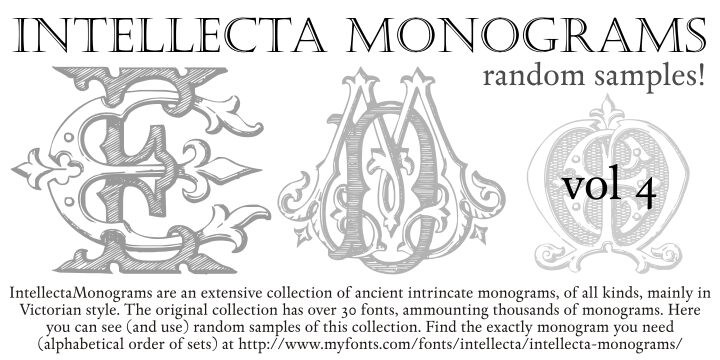
Intellecta Monograms Random Samples Four is a free decorative monogram dingbat font by Paulo W., built around elaborate interlocking initials. Each design layers engraved shading, hairline curls, leafy flourishes, and dense overlapping strokes in the manner of nineteenth-century seals and stationery, with pointed ornaments tucked between the sweeping curves.
Its strongest role is an ornate emblem for boutique branding. The engraved Victorian character also suits heritage packaging, bookplates, wedding invitations, and historical publishing, and each initial becomes both lettering and period decoration.